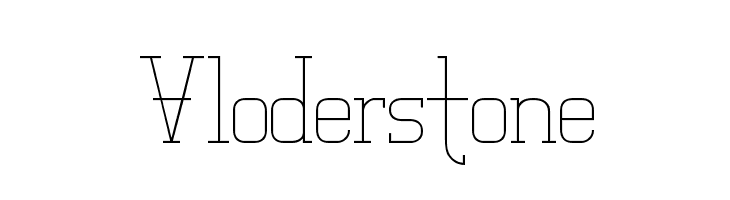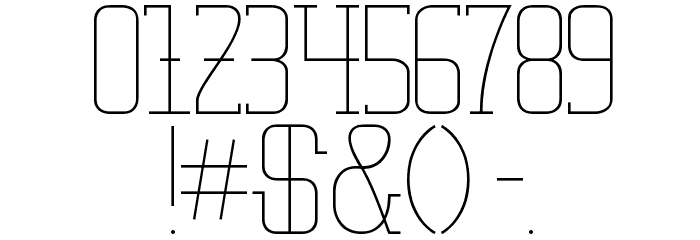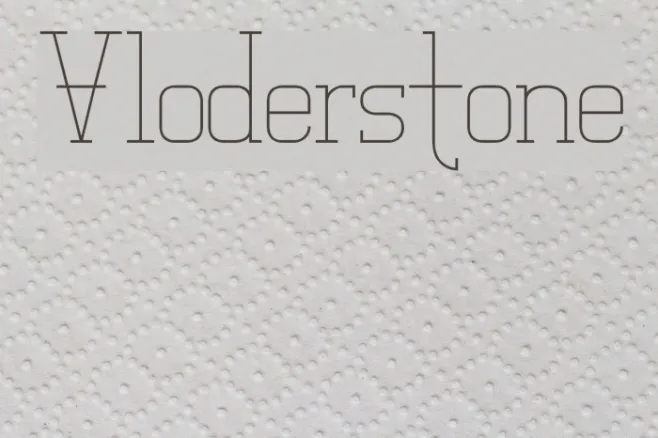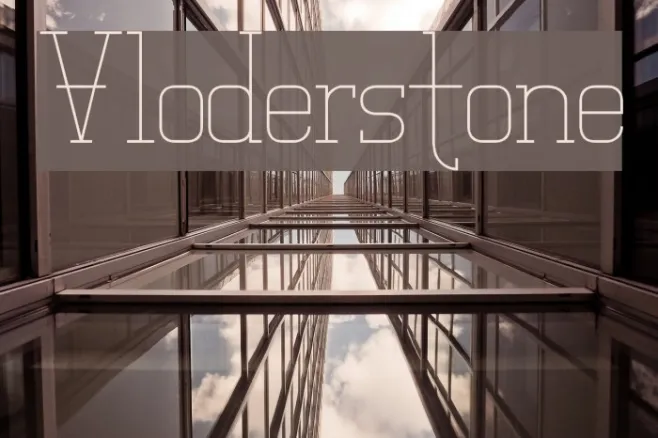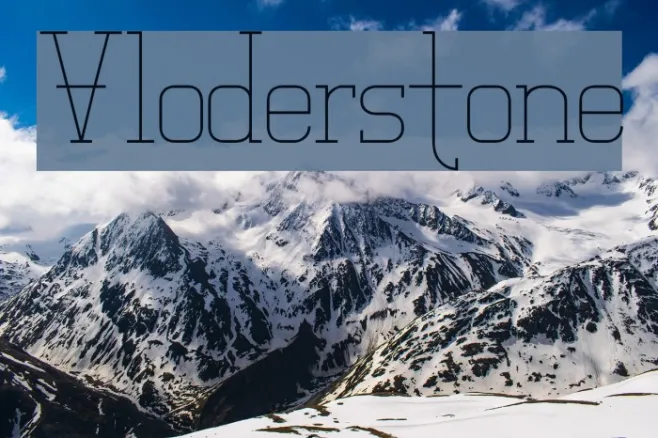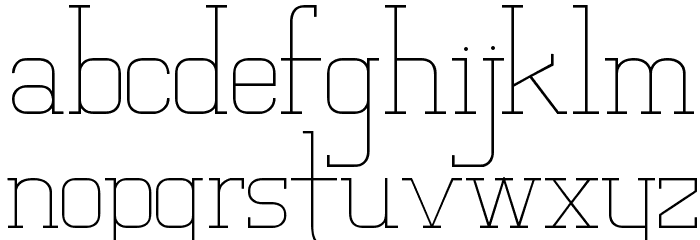
Vloderstone Font
Vloderstone Description
This font features a unique blend of geometric and linear elements, characterized by its thin, elongated strokes and minimalistic design. The uppercase letters are tall and narrow, with a consistent height that gives a uniform appearance. The lowercase letters maintain a similar style, with a slight variation in height and width that adds a touch of elegance. The numerals are distinct and easily readable, following the same linear aesthetic. Special characters are designed to complement the overall style, maintaining the thin, clean lines. This font's modern and sleek appearance makes it suitable for various design applications.
| Proposed Projects | Ideal for modern branding, editorial design, minimalist posters, and digital interfaces. |